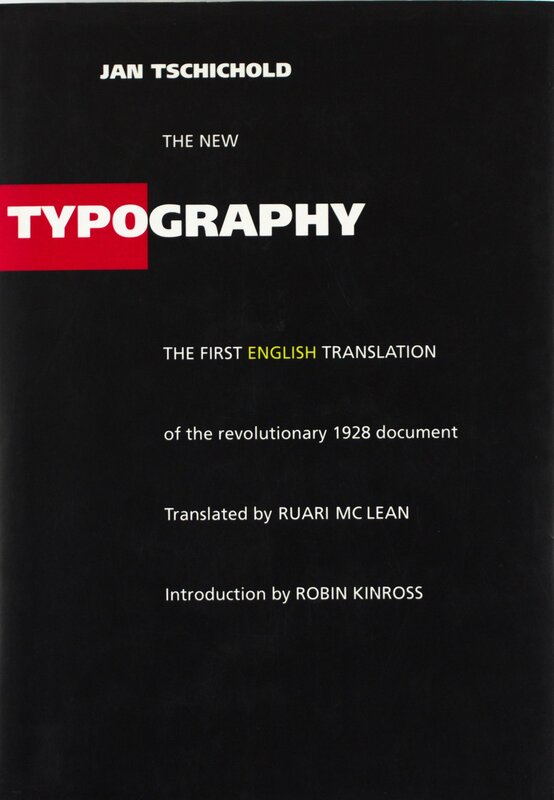
The New Typography: A Handbook For Modern Designers (1st English Translation)
• a handbook for modern designers
Von: Jan Tschichold
Inhalt: Since its initial publication in Berlin in 1928, Jan Tschichold's The New Typography has been recognized as the definitive treatise on book and graphic design in the machine age. At once a key theoretical document of Central European modernism between the world wars and an invaluable source of working principles for the practicing designer, this classic work enjoys the reputation among book artists that Le Corbusier's Toward a New Architecture has long held among architects. The book's legendary renown is certain to increase with the long-overdue appearance of this first English translation, published in a form that reflects Tschichold's original typography and design. Ranging from theoretical discussions of typography in the age of photography and mechanical standardization to practical considerations in the design of business forms, The New Typography remains essential reading for designers, art historians, and all those concerned with the evolution of visual communication in the twentieth century.